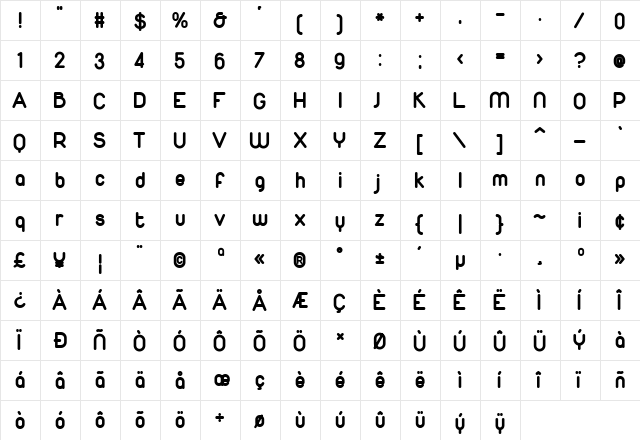
Duepuntozero bold Regular
| Foundry | studio kmzero |
| Designer | Francesco Canovaro |
Design Context for Duepuntozero bold Typeface
Duepuntozero bold takes a measured approach to typography — its balanced proportions and neutral character make it a reliable workhorse for both digital and print work. The heavy weight commands attention and anchors typographic hierarchies.